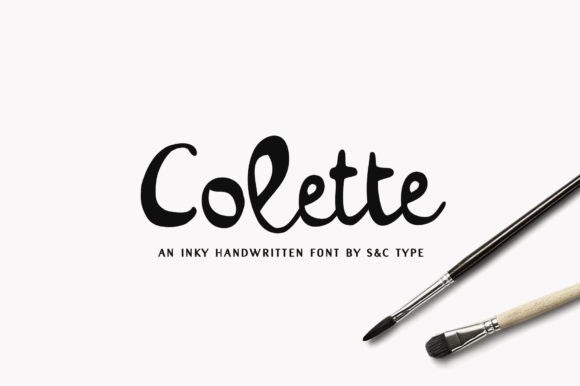
Welcome to the world of Colette Font, a script font family that's bound to captivate your heart. With its inky strokes and finely balanced design, Colette Font is a visual masterpiece that exudes elegance and sophistication.
Picture this: a wedding invitation adorned with Colette Font, the letters dancing across the page like a delicate calligraphy. The font's easy-to-read style ensures that your message shines through, while its stunning impact leaves a lasting impression on your guests.
Colette Font is not just limited to wedding invitations. Its versatility extends to a wide range of creative projects, from personal branding to social media posts, greeting cards to posters, and much more. Let your imagination soar as you explore the endless possibilities that await you with Colette Font.
Here are just a few reasons why Colette Font is the perfect choice for your next project:
* Exquisite Design: Colette Font boasts an exquisite design that blends classic charm with modern elegance. Its inky strokes and carefully crafted curves create a visually appealing aesthetic that's sure to turn heads.
* Easy to Read: Despite its intricate details, Colette Font maintains excellent readability. The font's carefully balanced structure ensures that your message is conveyed clearly and effectively, making it ideal for a variety of applications.
* Versatile: Colette Font's versatility knows no bounds. From formal invitations to playful social media posts, from chic branding materials to heartfelt greeting cards, Colette Font effortlessly adapts to any project, adding a touch of sophistication and charm.
* Stunning Impact: Colette Font is guaranteed to make a stunning impact wherever it's used. Its unique design commands attention and leaves a lasting impression, making it the perfect choice for projects that demand a touch of elegance and flair.
With Colette Font, you have the power to transform your creative visions into reality. Its emotional appeal and creative spark will elevate your projects to new heights, leaving a lasting impression on your audience. Embrace the beauty of Colette Font today and embark on a journey of creativity and self-expression.